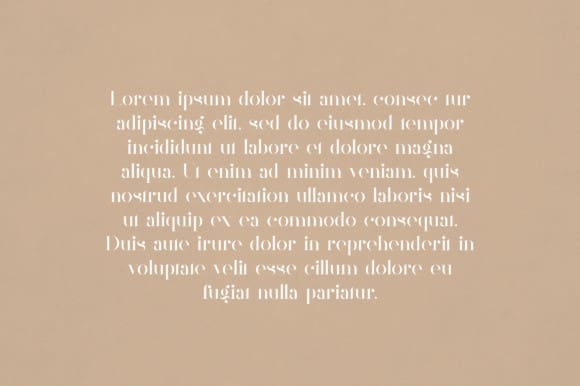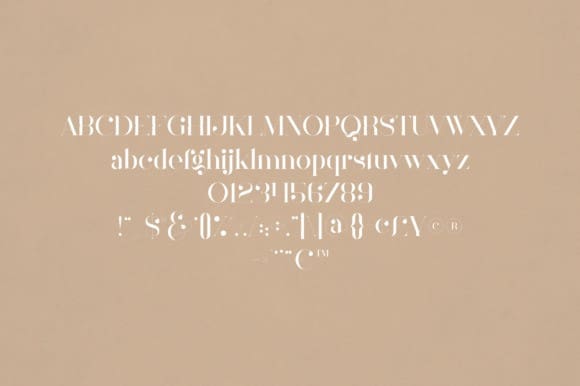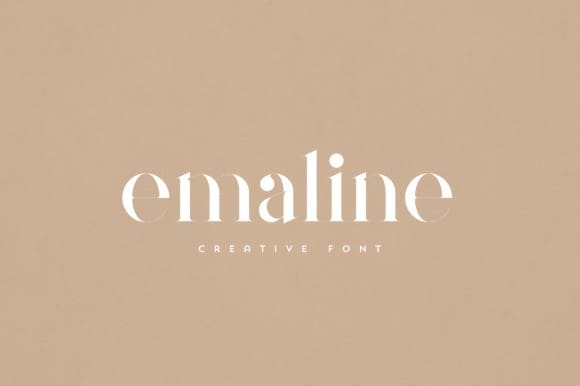
Emaline Font
Emaline Font is an elegant and versatile serif font that will make your typography truly unique! It will enchant every logo, branding, headline, or plain text!